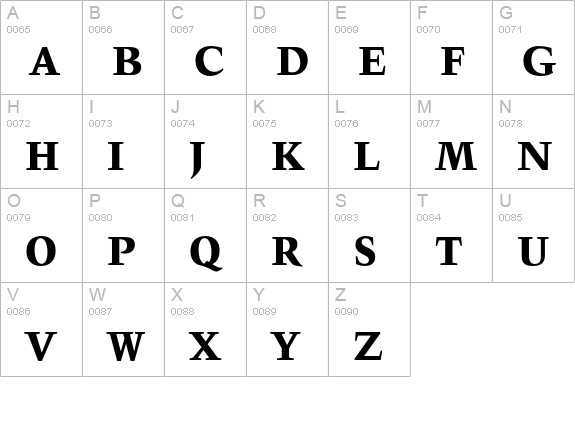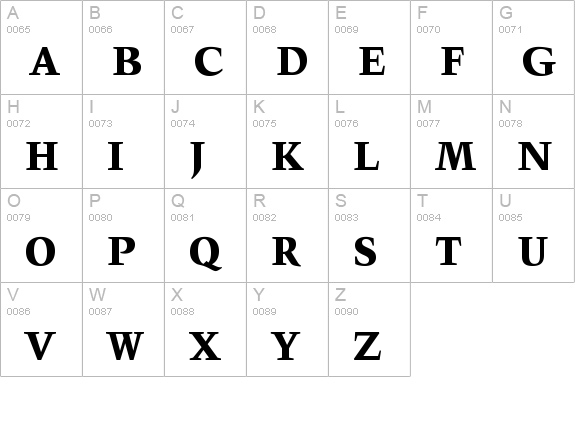
Kuenstler 480 Black Font Details
Kuenstler 480 Black is a maximum-weight, dramatic variant in the Kuenstler typeface family \xE2\x80\x94 well suited to maximum-impact headlines, posters, and packaging.
Kuenstler 480 Black is a classic and elegant font that exudes sophistication and charm. Its bold and striking appearance makes it perfect for creating eye-catching headlines and titles. The sharp serifs and clean lines give this font a timeless appeal that is sure to make your designs stand out. What's even better is that Kuenstler 480 Black is available for free download at FontsMarket.com. This means that you can easily access this beautiful font and use it in your projects without any cost. Whether you're working on a poster, logo, or any other design, Kuenstler 480 Black is a versatile font that will add a touch of elegance to your work. Download it now and elevate your design projects with this stunning typeface.